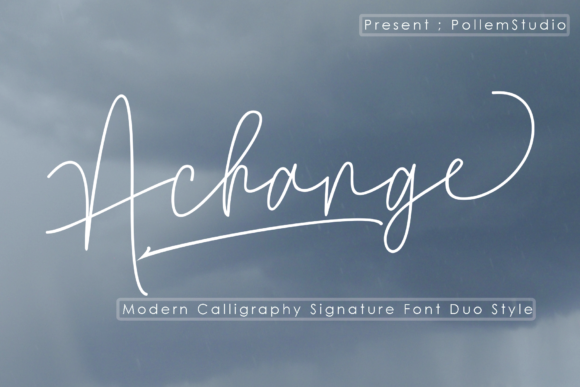
A New Creative Spark: Discover the Achange Duo Font
Have you ever been stuck on a design project, staring at a blank page, searching for that elusive spark that sets your creative vision ablaze? It’s a feeling we’ve all been there, and it’s precisely why we’re excited to share with you the Achange Duo Font – a game-changing typography duo that’s sure to breathe new life into your next design project.
With its sleek, modern aesthetic, the Achange Duo Font is the perfect addition to any design project seeking a contemporary feel. Whether you’re a seasoned designer or just starting out, this versatile font duo is designed to effortlessly elevate your work and leave a lasting impression.
As a valuable resource for designers, the Achange Duo Font offers endless possibilities for creative expression, making it an essential tool for anyone looking to take their design skills to the next level.
Achange Duo Font Key Features
- Unique Characteristics: The font features a unique blend of modern and classic elements, with clean lines and elegant curves, making it suitable for a wide range of design projects.
- Font Style: The font comes in two styles: Regular and Italic, providing designers with flexibility to choose the perfect style to suit their design needs.
Achange Duo Font Review
Overall, I’m impressed with the Achange Duo Font. It’s a great addition to any designer’s toolkit, and here’s why:
- ✨ Beautiful duotone effect: The Achange Duo Font features a stunning duotone effect that adds a touch of sophistication to any design. It’s perfect for creating visually appealing headers and titles.
- ✨ Versatile: This font is incredibly versatile and can be used in a variety of design contexts, from print to digital.
- ✨ Elegant: The Achange Duo Font has a clean and elegant design that makes it perfect for creating high-end designs.
However, like any font, the Achange Duo Font has its limitations:
- ⚠️ Limited character set: The font’s character set is limited, which can make it difficult to use in certain design situations.
- ⚠️ Not ideal for body text: While the Achange Duo Font is perfect for headers and titles, it’s not the best choice for body text due to its limited character set and duotone effect.
Overall, I’m a big fan of the Achange Duo Font. While it has some limitations, its unique duotone effect and versatility make it a great addition to any designer’s toolkit. If you’re looking for a font to add some sophistication to your designs, I highly recommend giving the Achange Duo Font a try.
Achange Duo Font is ideal for:
- Creating modern and stylish typography for branding materials.
- Designing unique and eye-catching headings and titles.
- Adding a touch of sophistication to digital and print materials.